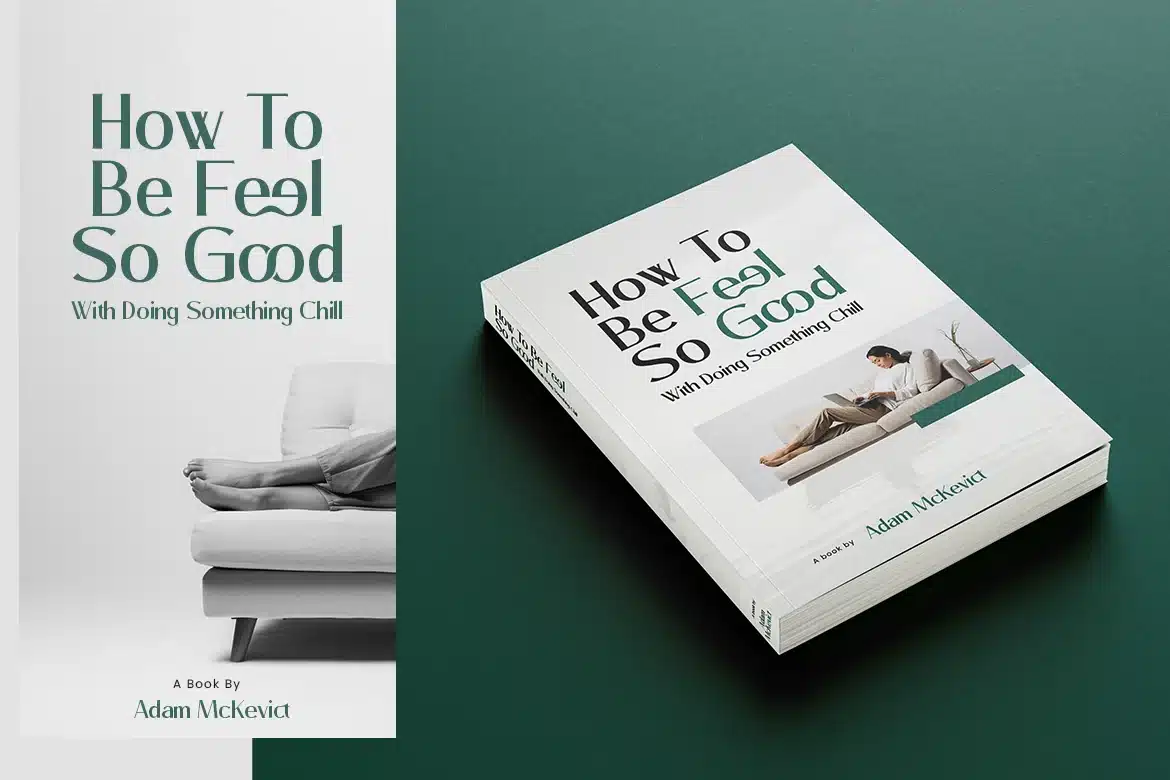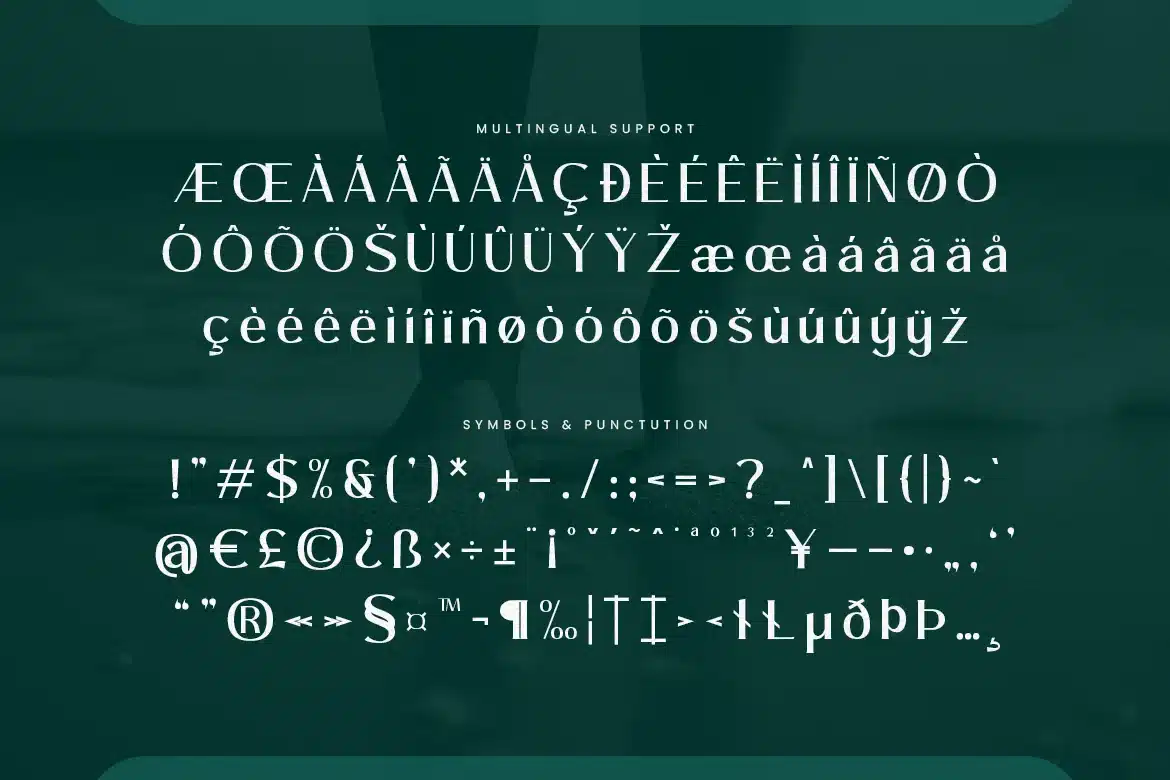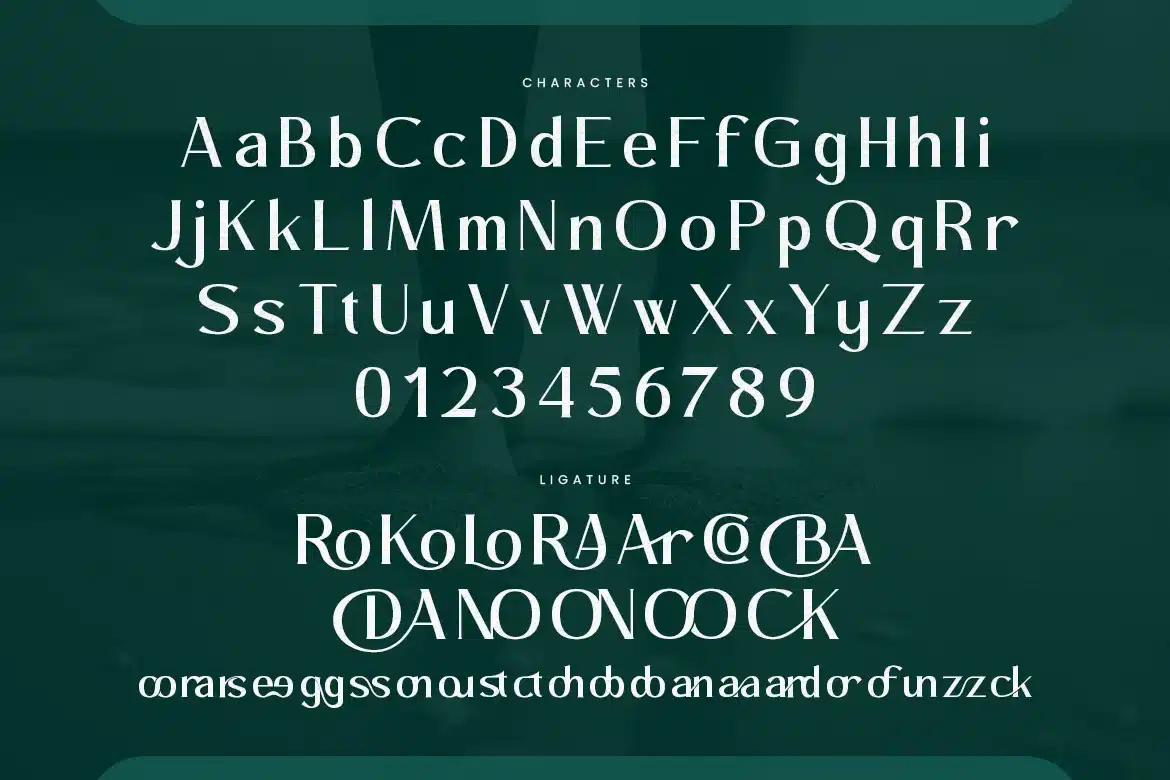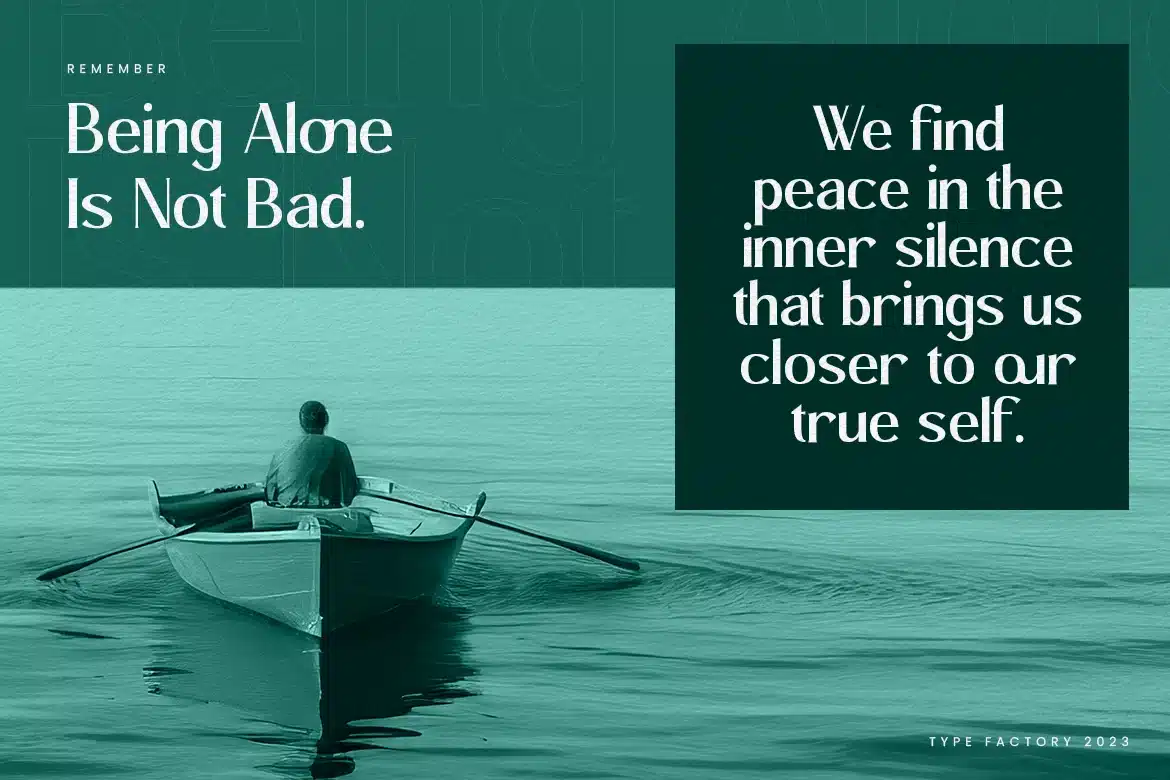
Branding Serif Typeface – Laggona Font
Branding Serif Typeface – Laggona is a modern serif typeface built with balanced contrast, refined curves, and distinctive ligature forms. The letterforms combine classic serif structure with contemporary detailing, creating a clear and structured typographic voice for branding projects.
Laggona features a set of ligatures designed to improve word flow and create cohesive headline compositions. The serif construction and controlled contrast make it suitable for branding systems, editorial layouts, book covers, packaging, fashion campaigns, and visual identity design.
The typeface includes uppercase, lowercase, numerals, punctuation, symbols, ligatures, and multilingual support. It performs well in display sizes as well as structured headline settings.
– Uppercase
– Lowercase
– Symbols & Punctuation
– Numeral
– Ligature
– Multilingual Support